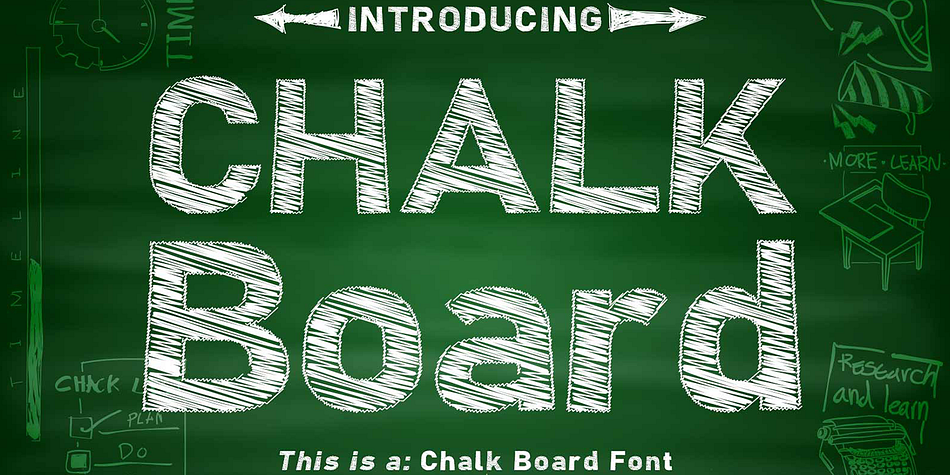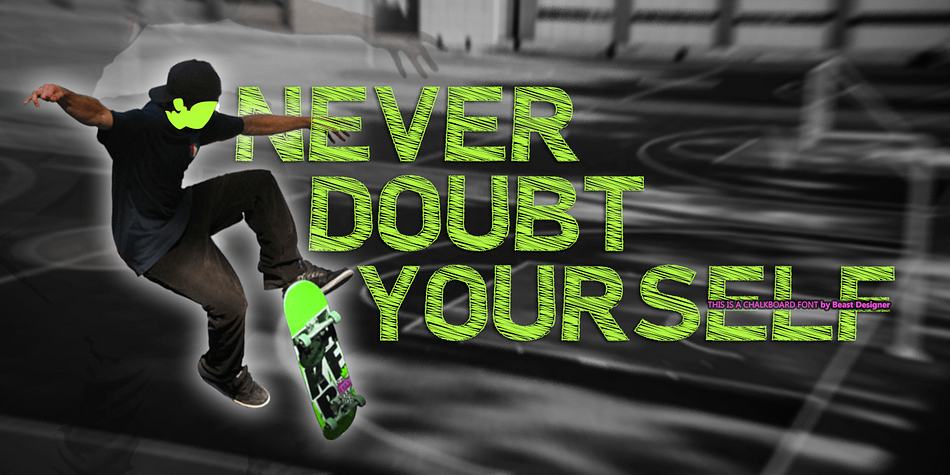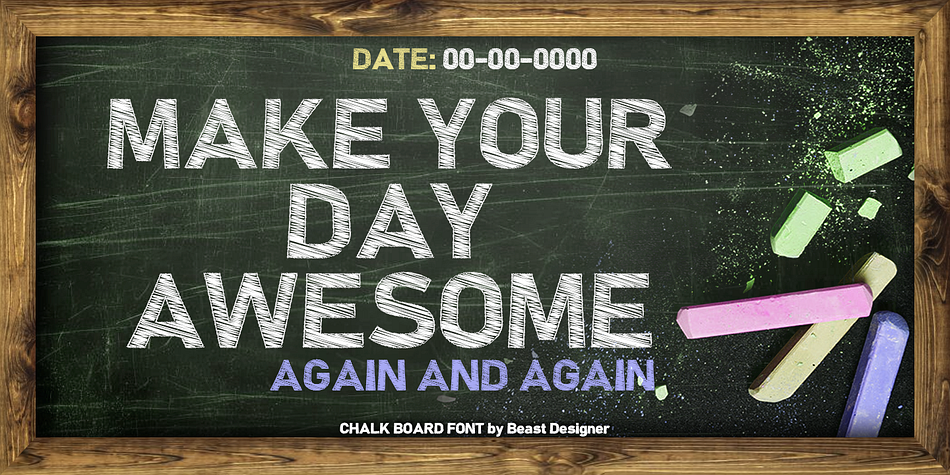
Chalk Board
Designed by Mohammed Lamjidi, Chalk Board is a display font family published by Beast Designer.
The Chalk Board font is a distinctive and playful typeface that mimics the appearance of handwritten text on a traditional chalkboard or blackboard. Its design features irregular lines and edges, as if the characters were drawn with chalk, creating a rustic and nostalgic aesthetic. The letters often appear slightly smudged or uneven, adding to the authentic feel of chalk markings.
The Chalkboard font embodies a casual and informal style, making it suitable for a wide range of creative projects. It’s commonly used in design contexts where a handcrafted, approachable, and whimsical appearance is desired. This font is often associated with educational materials, children’s books, signage, restaurant menus, art-related projects, and any content that aims to evoke a sense of informality and nostalgia.
Designer Mohammed Lamjidi